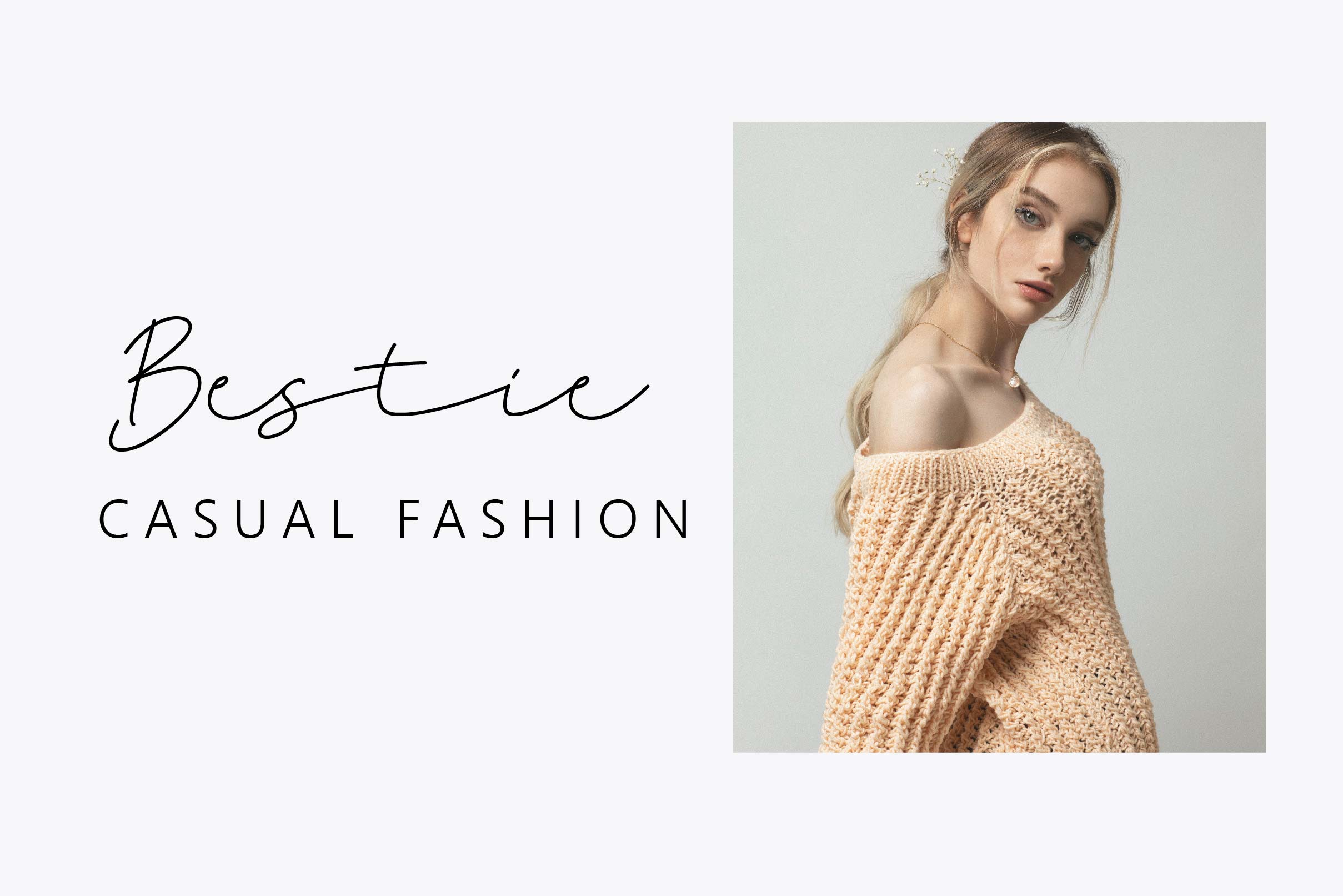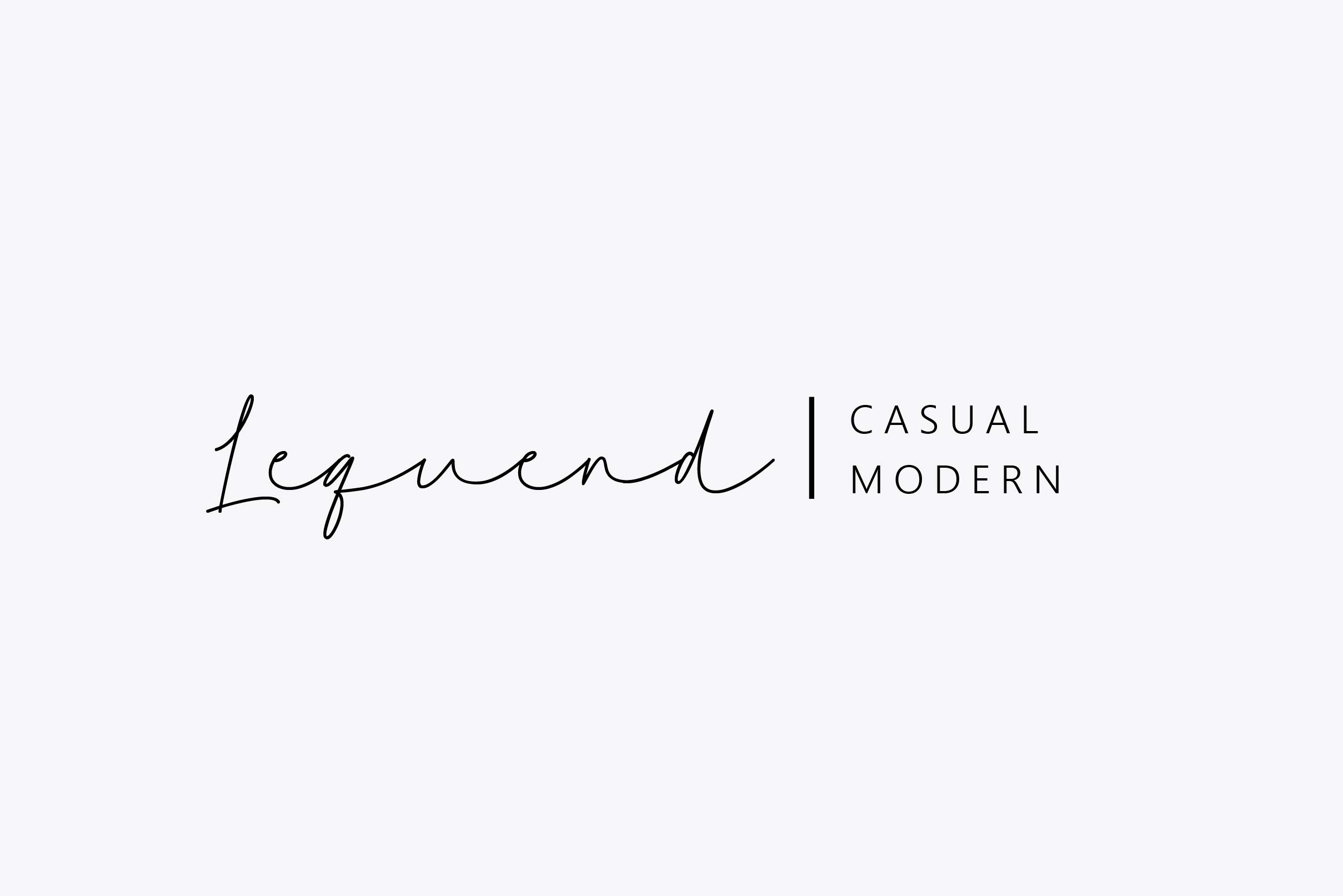
Zudime Font
Zudime Handwritten Font is a sweet and cursive handwritten font. This gentle font will look gorgeous on a variety of design ideas. Salisbury is PUA encoded which means you can access all glyphs and swashes with ease!
– Uppercase, Lowercase, Numeral & Punctuation
– Alternate Letters, Ligature & Swash/Tail